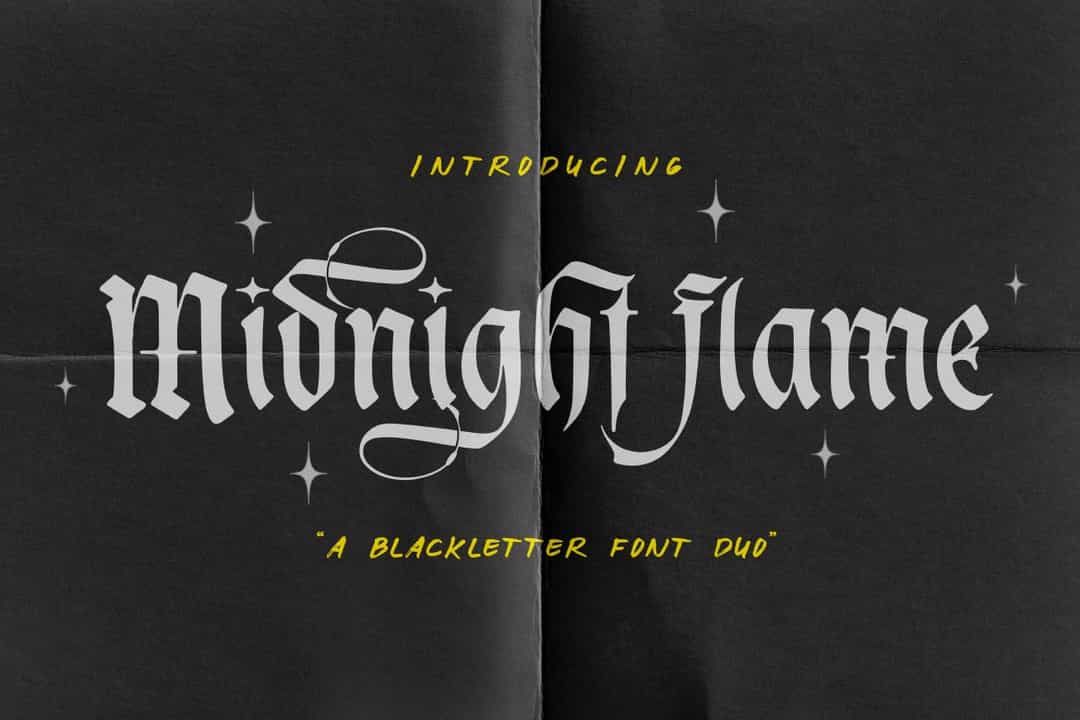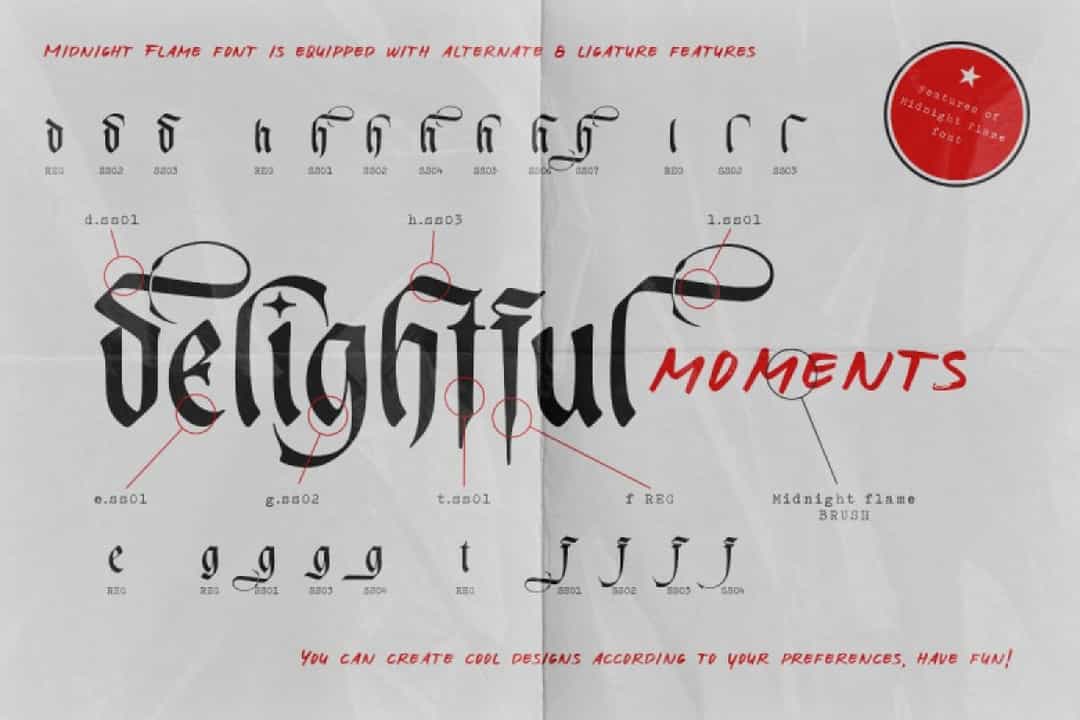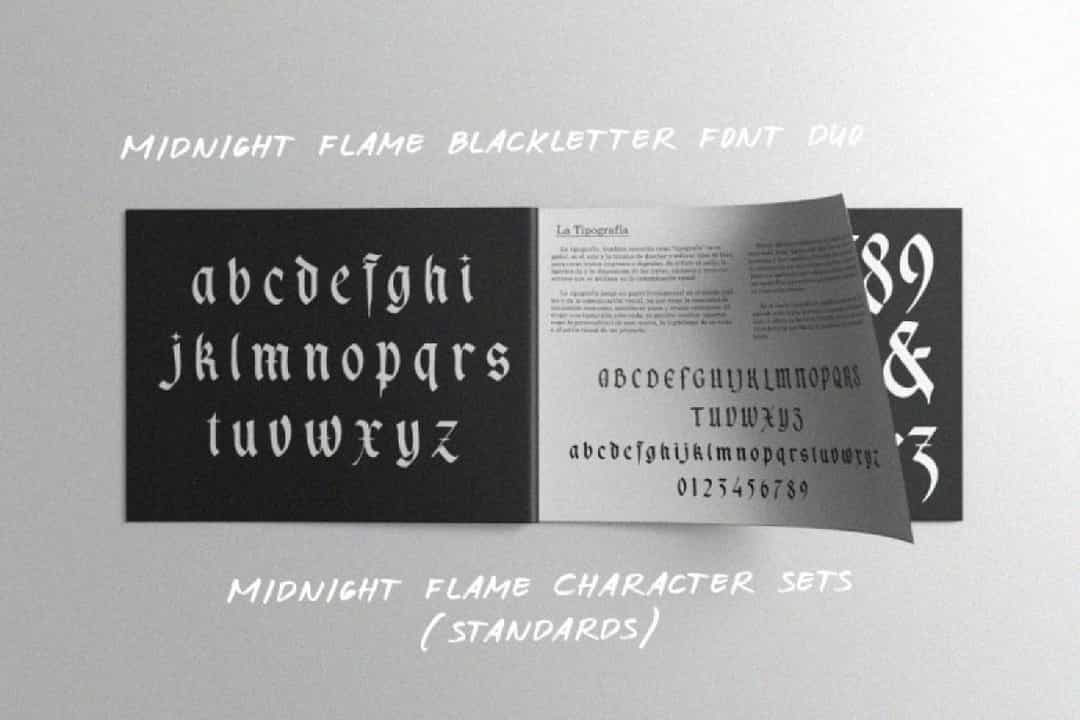
Midnight Flame, the most powerful Gothic-style Blackletter font available today, boasts numerous stunning features that capture the best of medieval calligraphy while conveying mystery and grace.